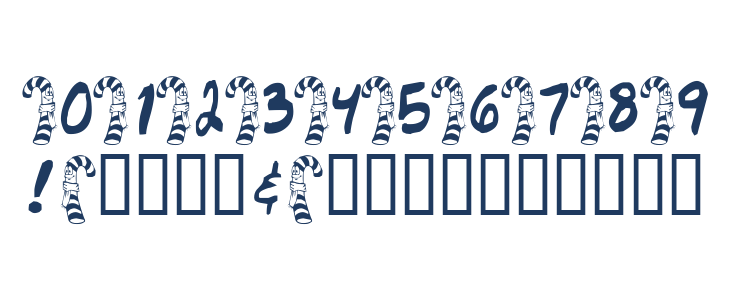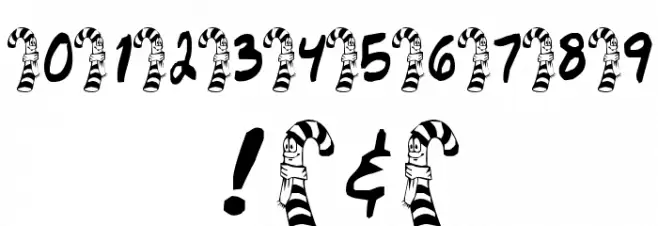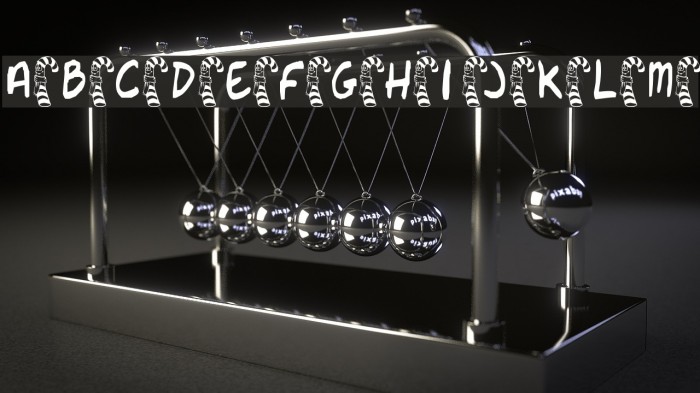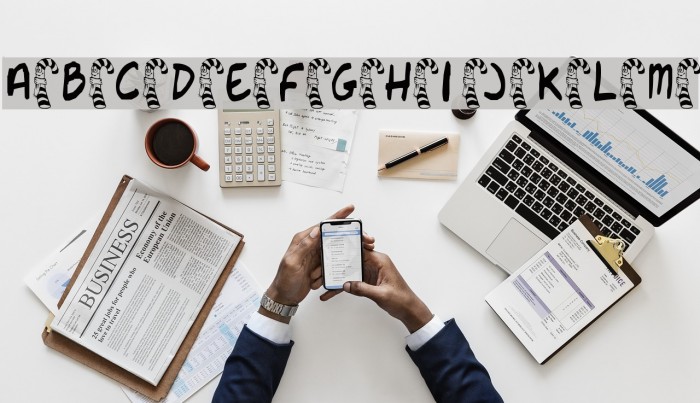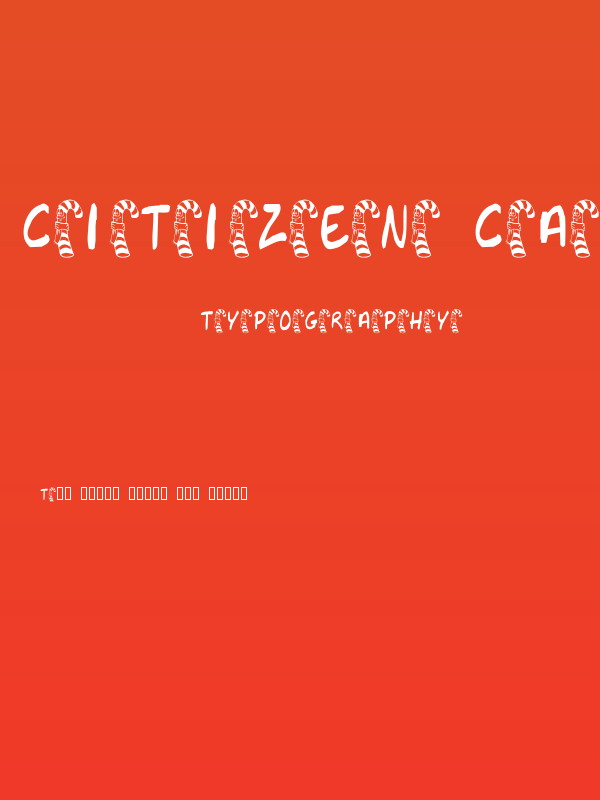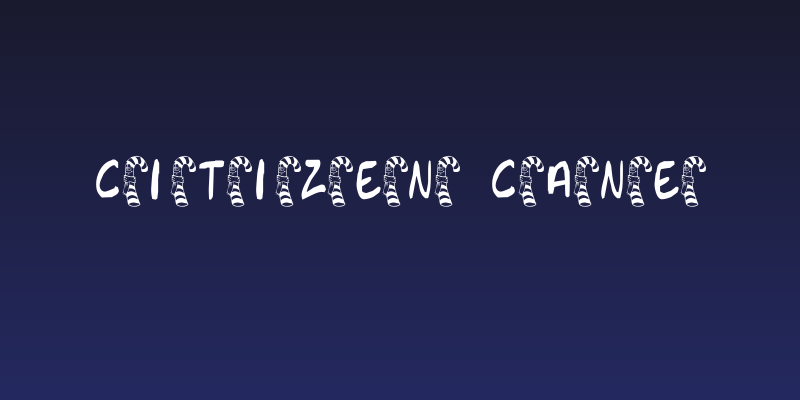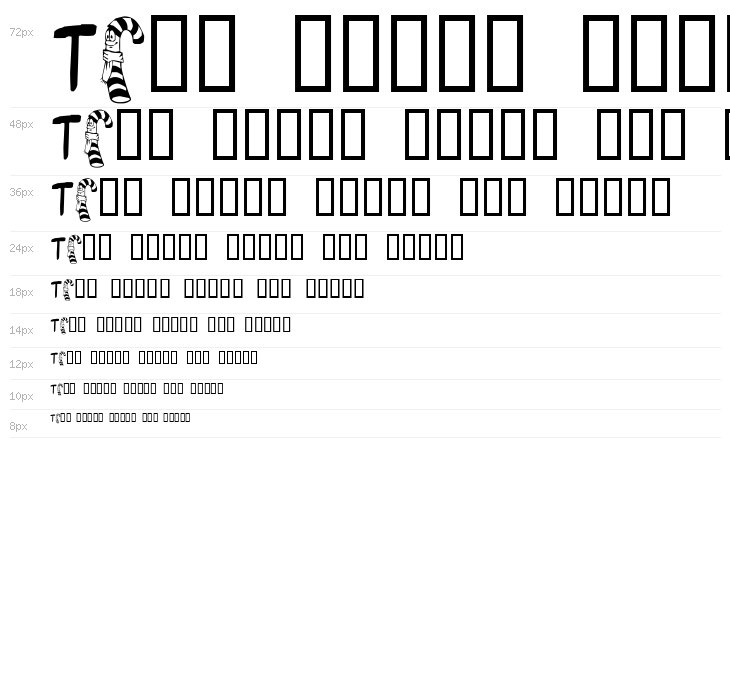
Citizen Cane Font
Citizen Cane Description
This playful and whimsical font features letters that resemble candy canes, with bold stripes and a slightly curved, festive appearance. Each character is designed with a unique, decorative style that evokes a sense of fun and holiday cheer. The font is highly decorative, making it ideal for projects that require a touch of creativity and festivity. The characters are evenly spaced, ensuring readability while maintaining their distinctive style. The numbers and special characters follow the same candy cane theme, adding consistency and charm to the overall design.
| Proposed Projects | Ideal for holiday cards, festive banners, children's party invitations, and playful branding. |